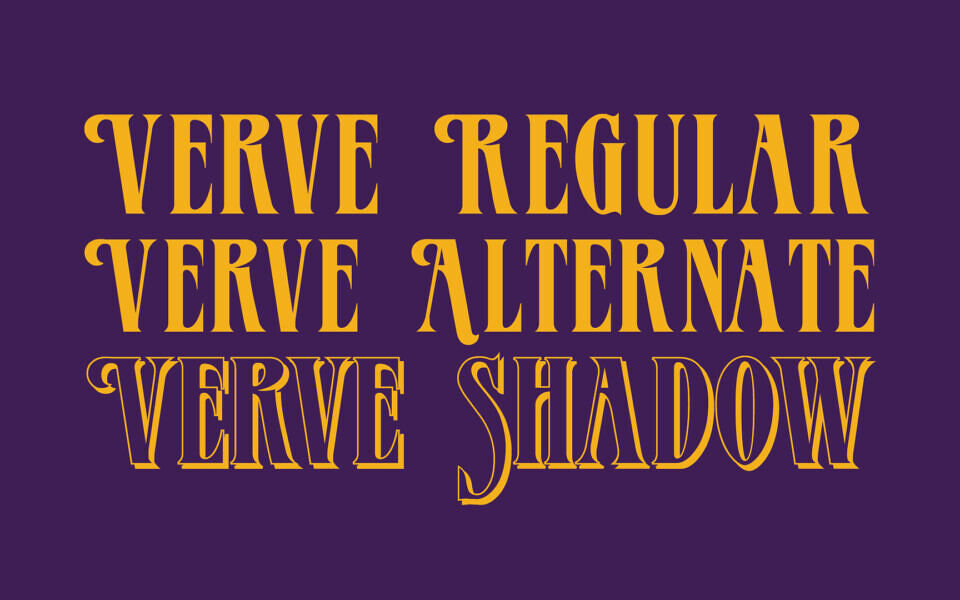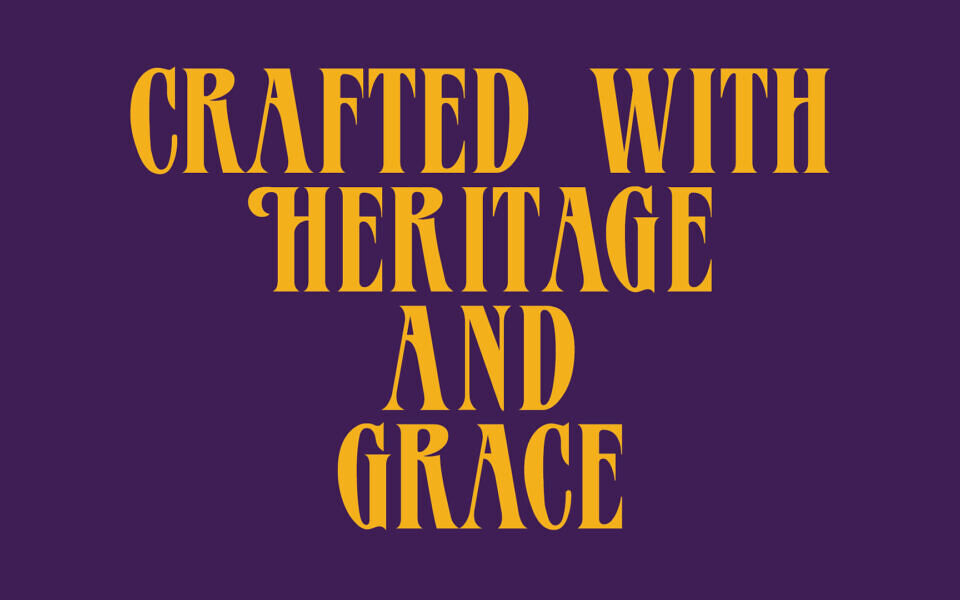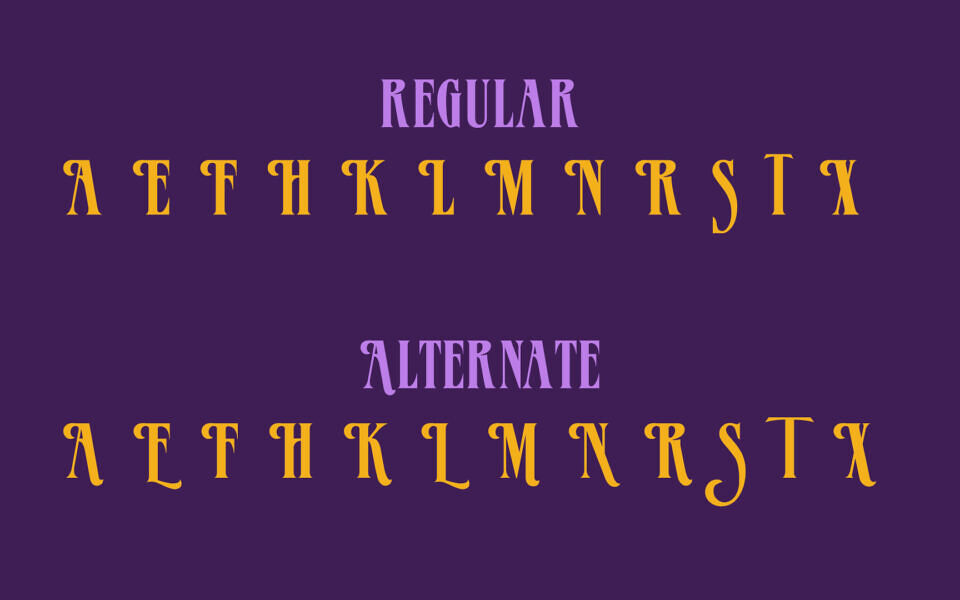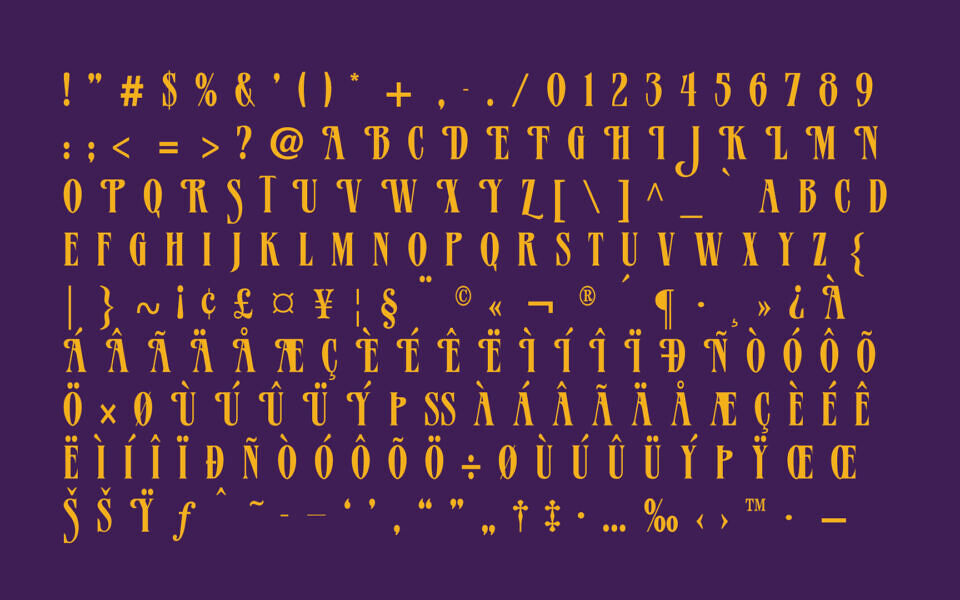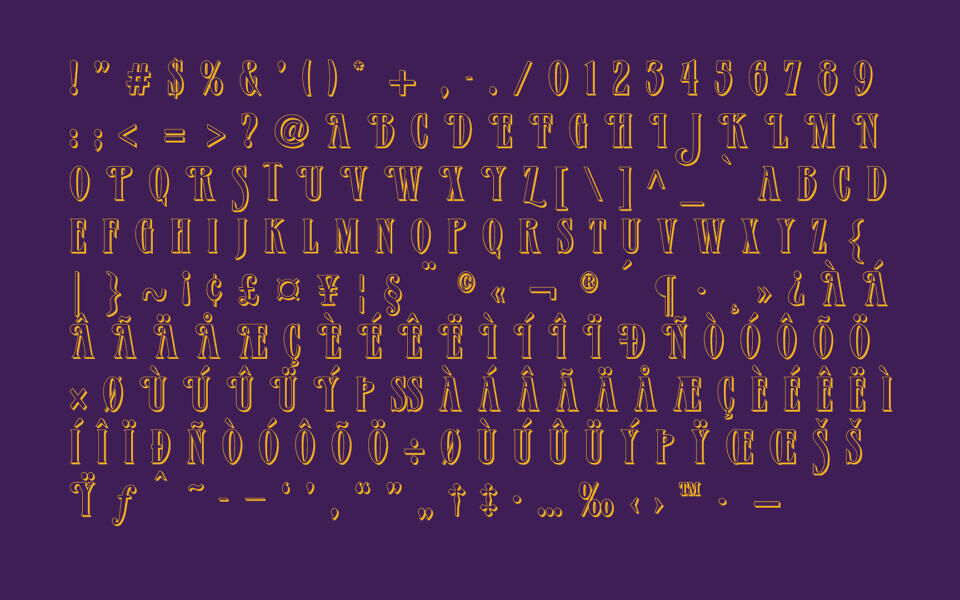
Verve Font Family
Verve is a versatile, classic-style font family created by Dieter Steffmann. It features a tall, narrow aesthetic with bracketed serifs, making it an excellent choice for headlines, posters, logos and display work where a vintage or editorial feel is desired.
The family includes Regular, Alternate, and Shadow styles, offering designers flexibility for layered typography and striking visual emphasis in both print and web projects.